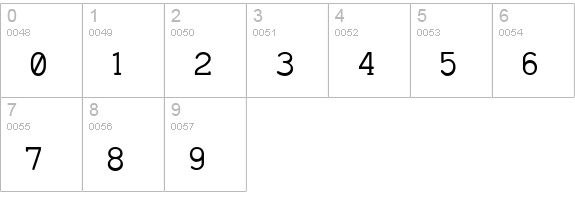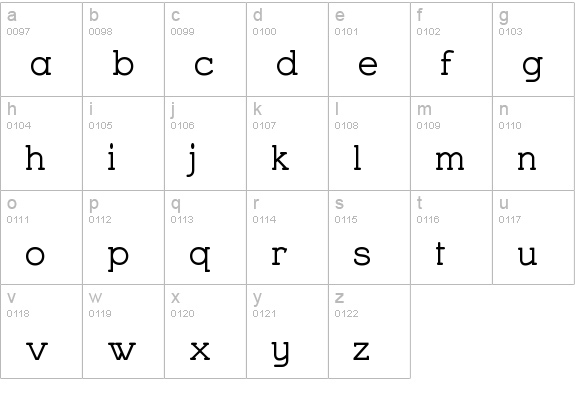
Charrington SemiBold Font Details
Charrington SemiBold is a sub-bold, structured variant in the Charrington typeface family \xE2\x80\x94 well suited to sub-headlines and emphasised passages.
Charrington SemiBold font is a versatile and modern typeface that exudes confidence and professionalism. With its bold and sturdy appearance, this font is perfect for making a strong statement in your designs. The well-balanced letterforms and clean lines make Charrington SemiBold a great choice for headlines, logos, and branding materials. What sets Charrington SemiBold font apart is that it is available for free download at FontsMarket.com. This means that you can easily access and use this high-quality font for any personal or commercial project without any cost. Whether you're a designer looking to add a touch of sophistication to your work or a business owner wanting to create a strong visual identity, Charrington SemiBold font is a fantastic option that won't break the bank. Download it today and elevate your designs with this striking and impactful typeface.